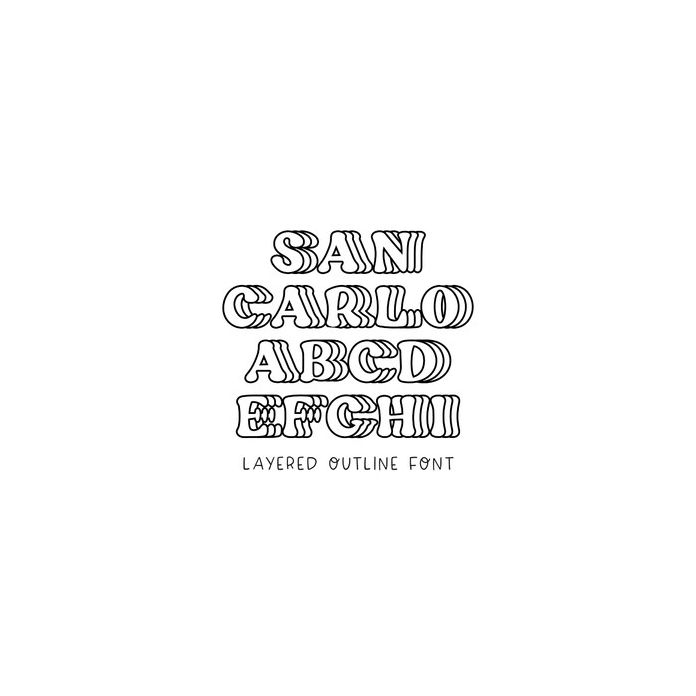
BFC San Carlo Outline Retro Layered Font
San Carlo Outline is a trendy layered font. Pair this with our solid version to create a multi-colored design.